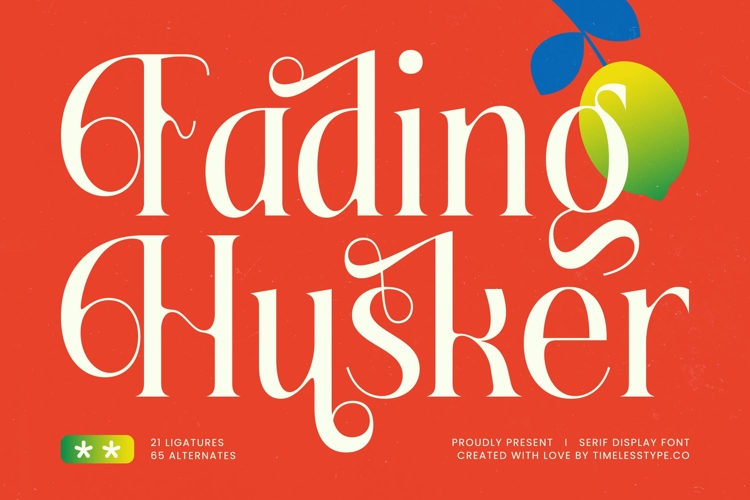
Fading Husker - Serif Display Font
The Fading Husker Typeface is a modern serif display font that combines bold sophistication with decorative elegance. Designed with 21 ligatures and 65 alternates, it gives designers a wide range of creative possibilities to craft unique, stylish, and highly expressive typography. Its structure is defined by tall, refined letterforms with striking contrasts between thick and thin strokes, while ornamental swashes and flourishes bring a sense of rhythm, movement, and artistic charm. This balance of precision and decoration makes it a standout choice for projects that require drama, luxury, and visual impact.
The typeface is especially powerful for editorial design, where it can transform magazine headlines, book covers, and feature spreads into visually captivating works. Its graceful alternates allow text to become more than just words—they become design elements that convey mood, character, and artistry. In luxury branding, Fading Husker excels in creating logos, monograms, and packaging designs for fashion houses, high-end beauty products, boutique labels, and artisanal goods. Its unique letterforms ensure a sense of exclusivity and memorability, ideal for brands that want to stand apart with a refined and modern identity.